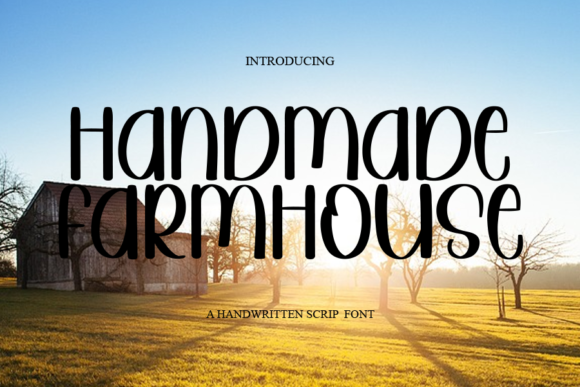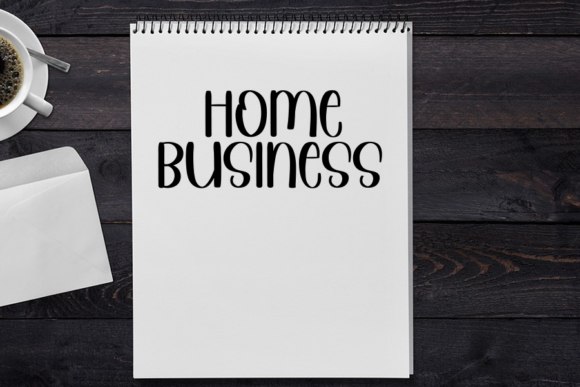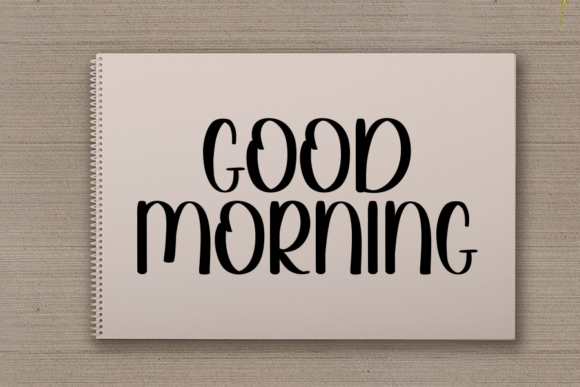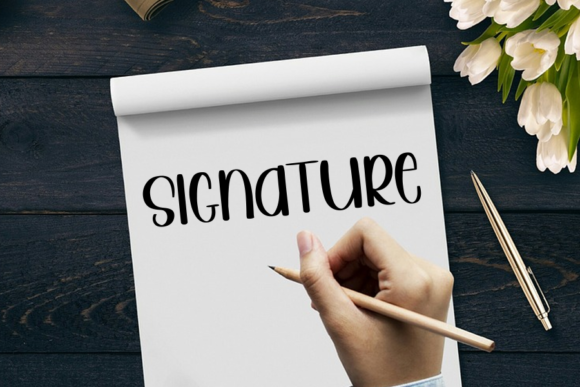
Handmade Farmhouse Font
About the Handmade Farmhouse Font
Experience the unique personality of Handmade Farmhouse Font, a font designed for impact. Handmade Farmhouse is a simple, quirky and adaptable handwritten font. Its informal style and casual vibe will make this font a go-to choice for each of the creations that require a relaxed touch.
This font shines in projects requiring a friendly, approachable feel. Ideal applications include logos for home-based businesses, craft product packaging, wedding invitations, short social media posts, and greeting cards. Its informal nature makes it unsuitable for large bodies of text or UI elements where readability is paramount.
Handmade Farmhouse pairs well with clean sans-serif fonts like Open Sans or Lato for a balanced contrast, or a more geometric sans-serif like Montserrat for a modern twist. For a touch of elegance, consider pairing it with a delicate serif like Playfair Display. Avoid pairing it with overly ornate script fonts, as this could clash with its casual aesthetic.
The font’s core personality is cheerful and rustic, conveying warmth and approachability. Its quirky details add a touch of personality without sacrificing legibility in shorter applications.
Handmade Farmhouse Font Example